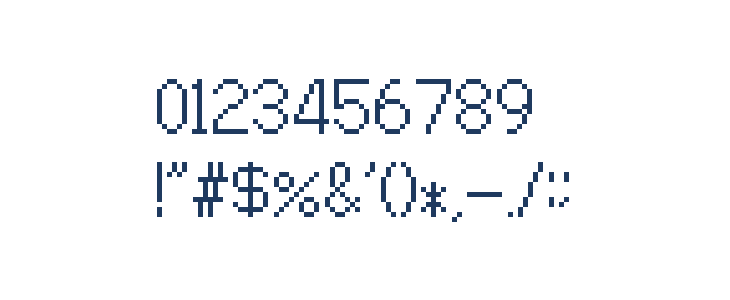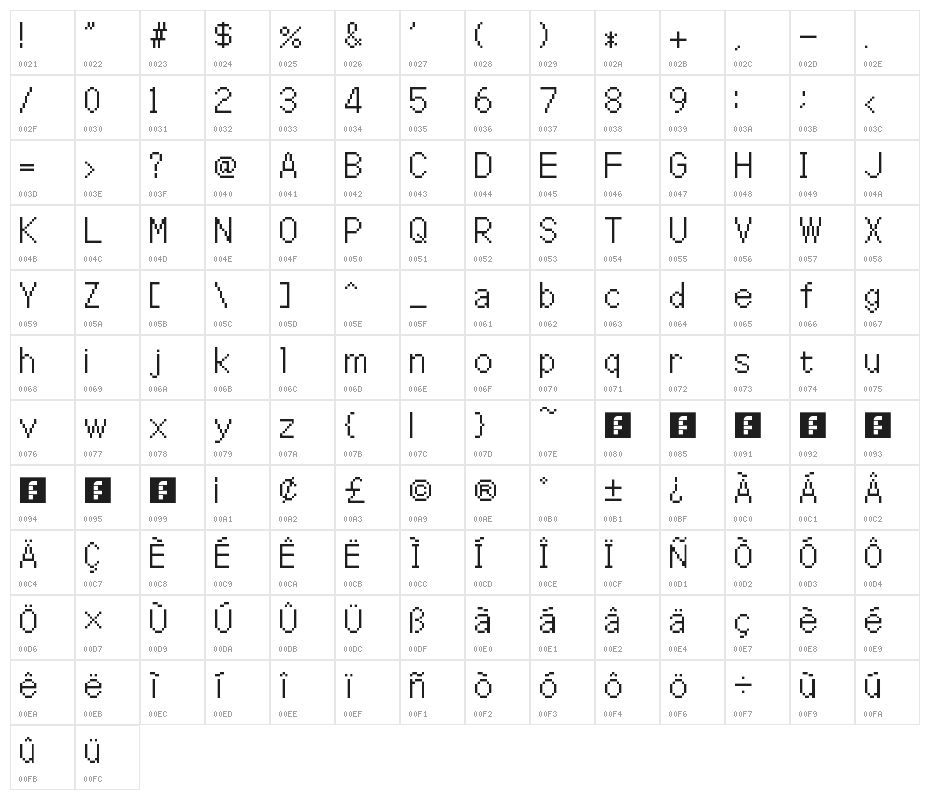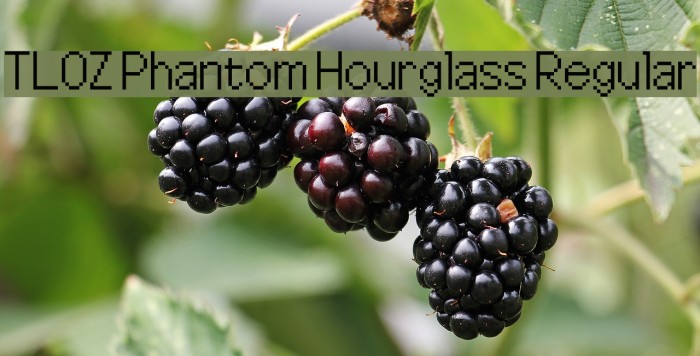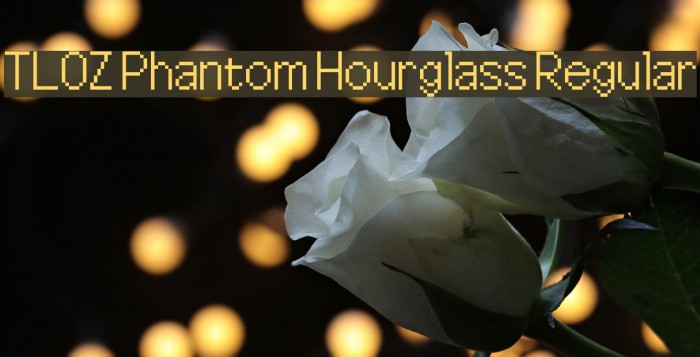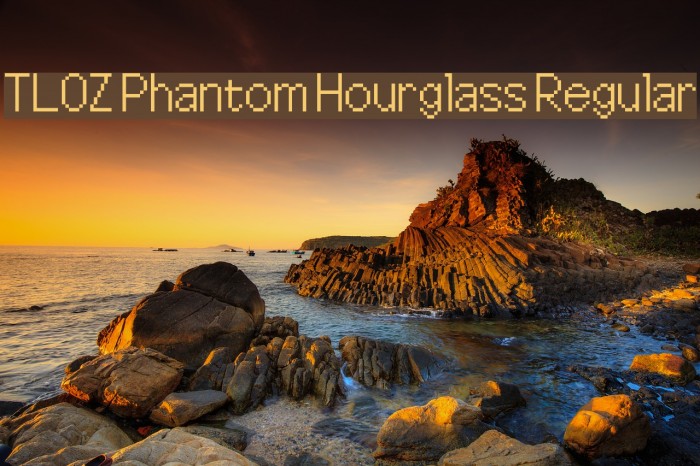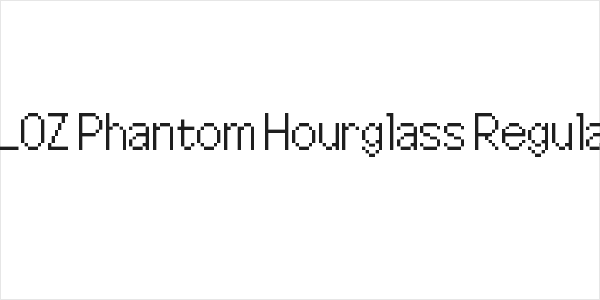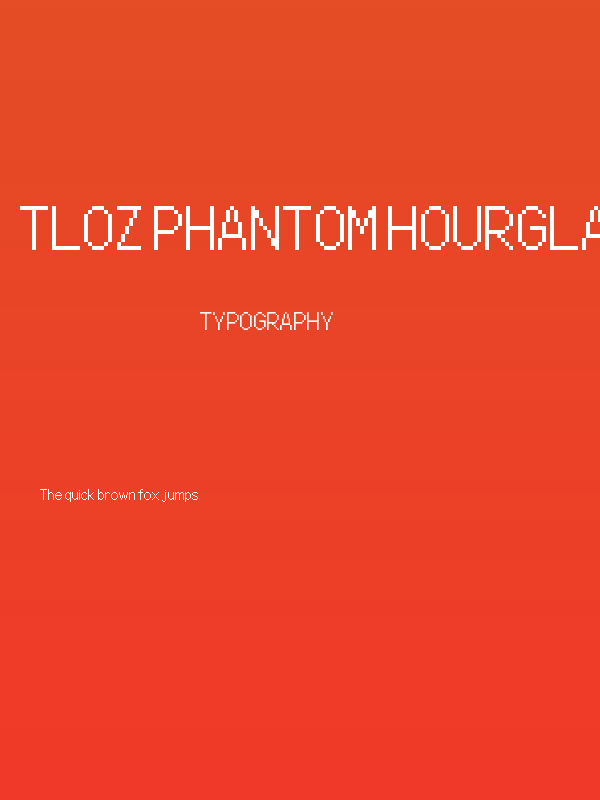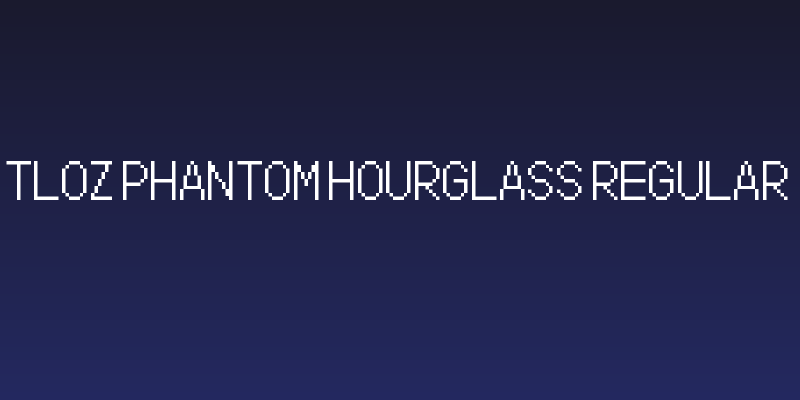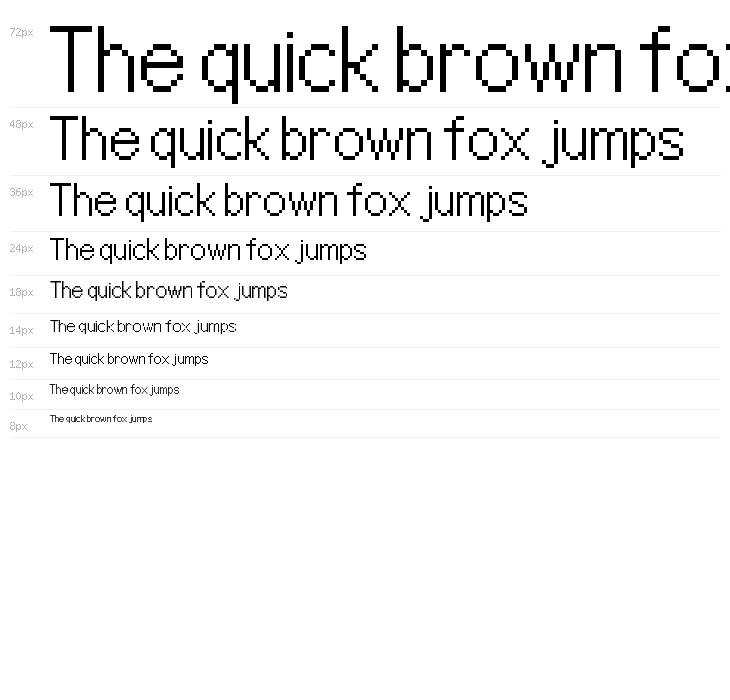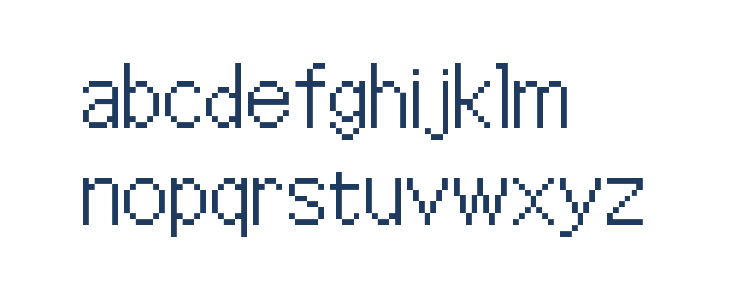
TLOZ Phantom Hourglass Regular Font
TLOZ Phantom Hourglass Regular Description
This font features a pixelated, grid-like structure reminiscent of classic video game graphics. Each character is composed of small, square blocks, giving it a distinctly retro, digital appearance. The uppercase and lowercase letters maintain a consistent height, with the uppercase being slightly more pronounced. Numbers and special characters follow the same pixelated style, ensuring uniformity across the typeface. The overall design is straightforward and functional, making it ideal for projects that aim to evoke nostalgia or a vintage digital aesthetic. Its simplicity and clarity ensure readability even at smaller sizes.
| Use Case | Logos, Headlines, Digital Art |
| Proposed Projects | Ideal for retro video game designs, digital art projects, nostalgic branding, and tech-themed events. |